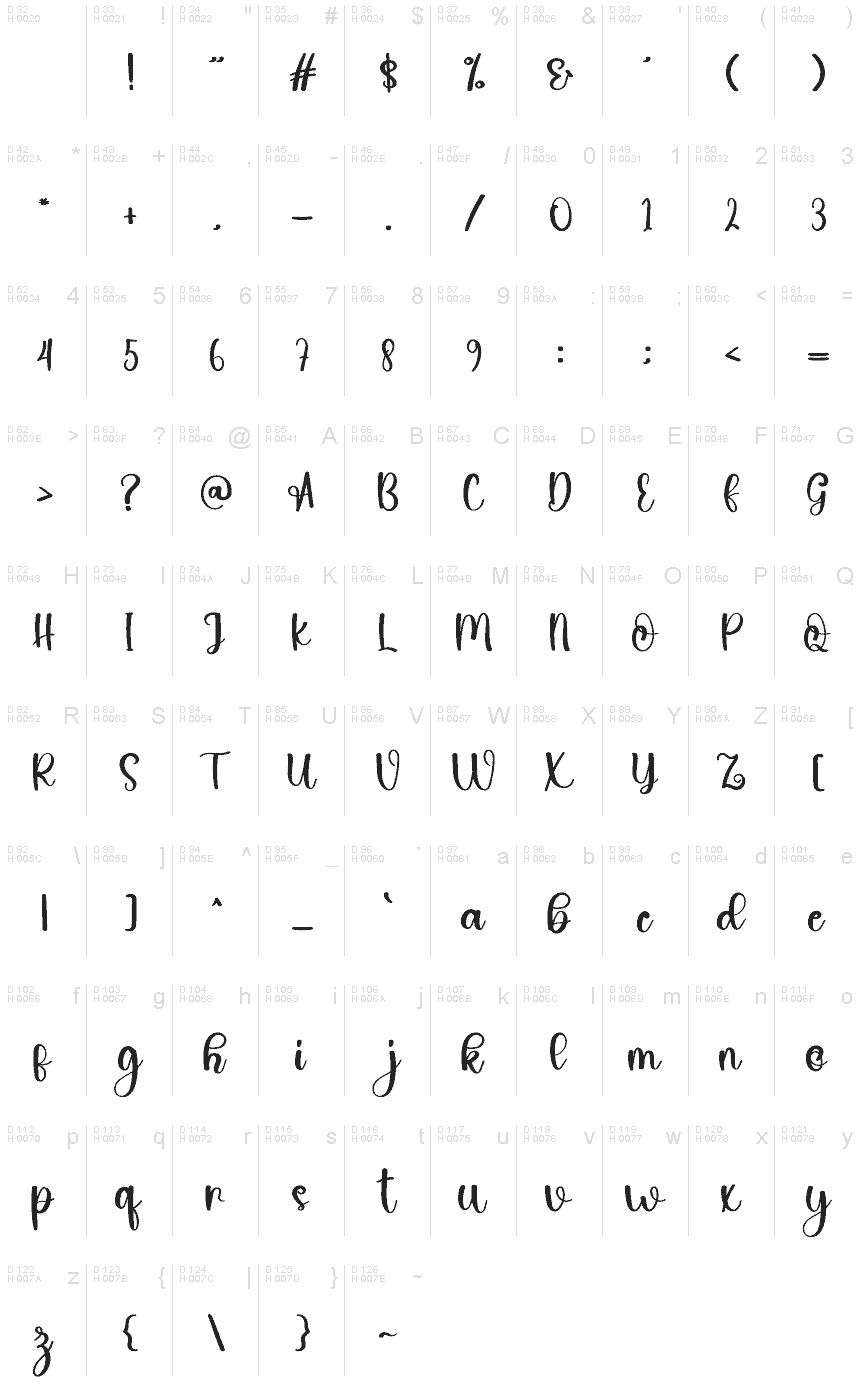
Smiley Face
Smiley Face font by PiPi Creative is a free handwritten font with a casual script design and flowing lines. Its elegant appearance creates an approachable mood for audiences and gives writings a modern feel. It is neither heavy nor inconsistent, but pure in its form, drawing the attention of those who come across it easily.
Since headings always need that extra spark, authors will have plenty of chances to use Smiley face in both personal and professional projects. Introduce it in logotypes or use its calligraphic designs for branding purposes as well as packaging designs, labels, T-shirt art, invitations and greeting cards. Restaurants can prepare the most delicious combo meal by designing modern menus that highlight food items using this new tool which can further be used for business cards or shop signs.